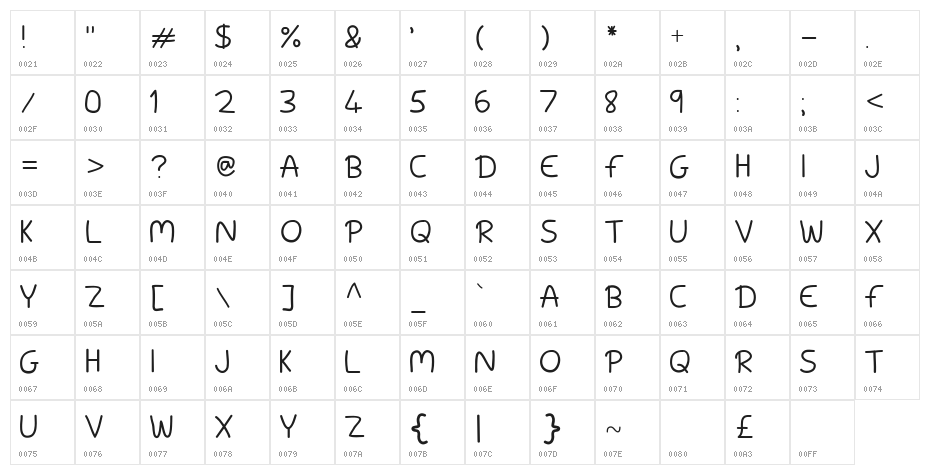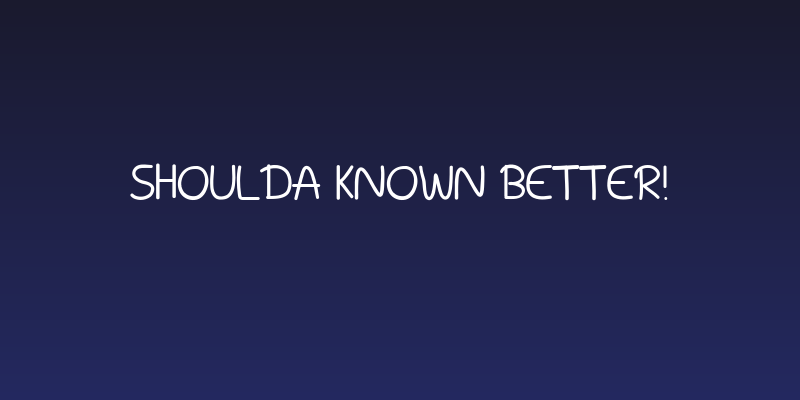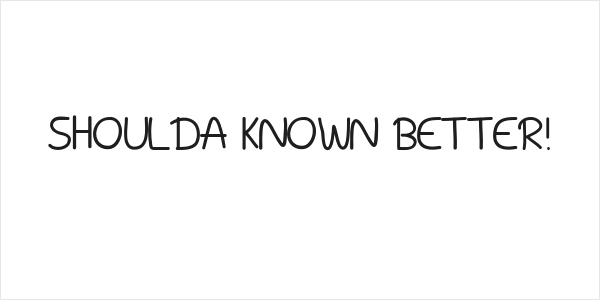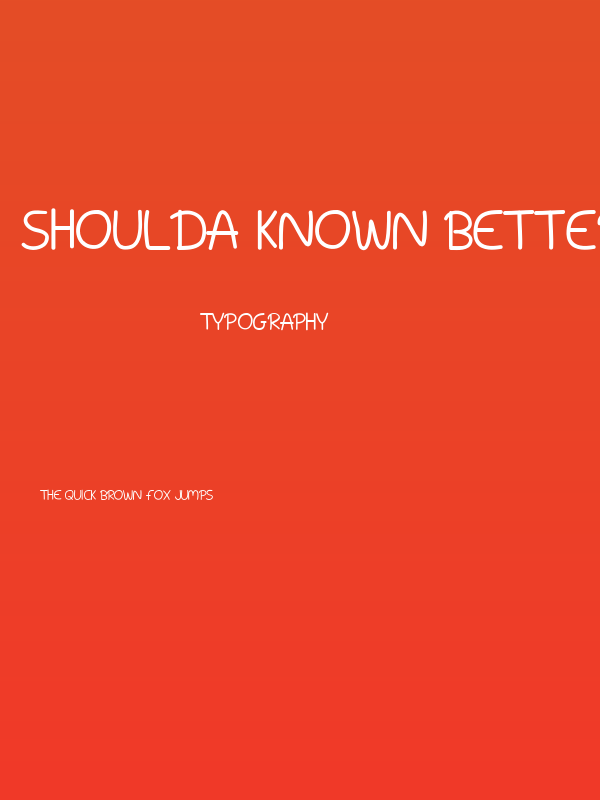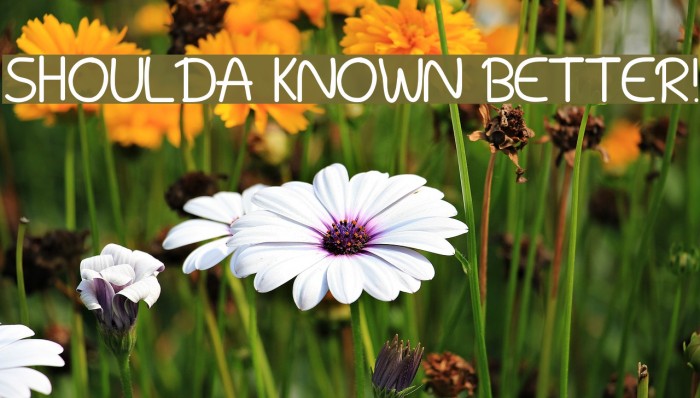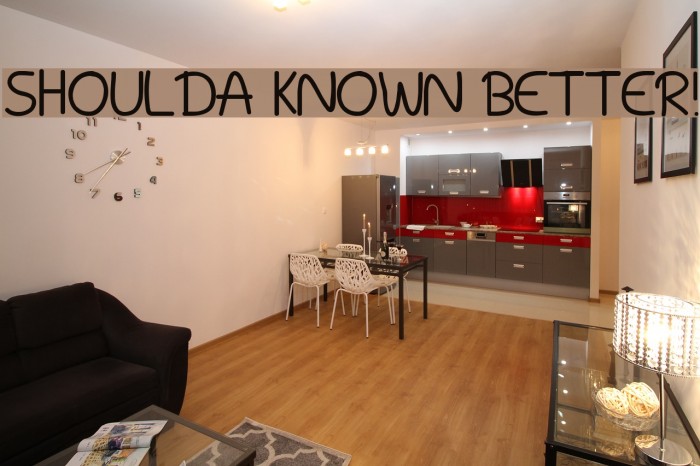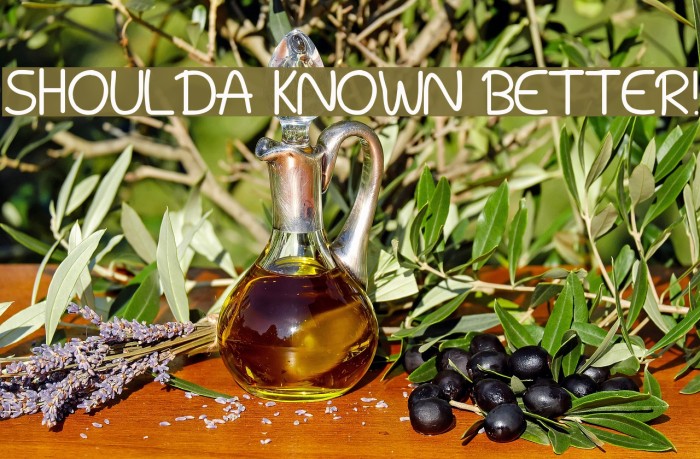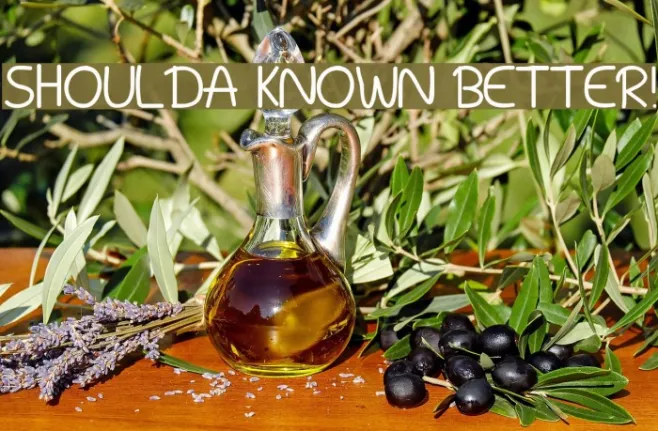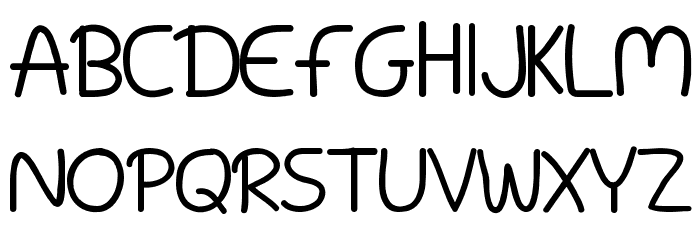
Shoulda Known Better! Font
Shoulda Known Better! Description
This font features a playful and casual handwritten style, characterized by rounded edges and a consistent stroke width. The letters are slightly irregular, giving it a friendly and approachable appearance. The uppercase and lowercase letters maintain a uniform height, which contributes to its readability. The numerals and special characters follow the same design principles, ensuring a cohesive look across all glyphs. This font is well-suited for projects that aim to convey a sense of warmth and informality.
| Use Case | Headlines, Informal text, Branding |
| Proposed Projects | Ideal for children's books, greeting cards, informal invitations, and playful branding. |